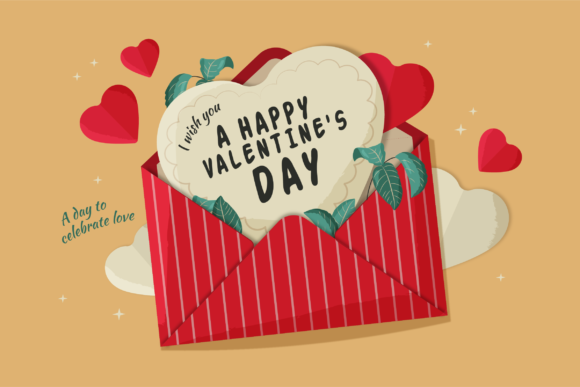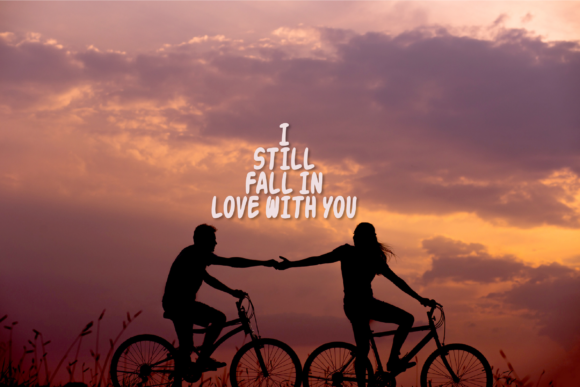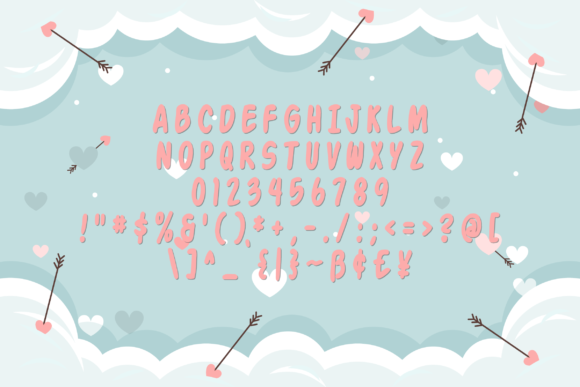
Caterine Font: The Perfect Blend of Charm, Cuteness, and Elegance
In the world of typography, fonts play a crucial role in making or breaking a design. A well-chosen font can elevate your project, making it more engaging, readable, and aesthetically pleasing. If you’re a designer or crafter looking for a versatile and captivating font, look no further than Caterine Font. This charming and cute sans serif font is not only elegant but also incredibly adaptable, making it perfect for a wide range of applications.
The Characteristics of Caterine Font
Caterine Font is a sans serif font, which means it doesn’t have the small lines or flourishes at the ends of the letters. This makes it clean, modern, and highly legible. The font’s design is characterized by its rounded edges and soft curves, giving it a friendly and approachable feel. Despite its playful appearance, Caterine Font exudes an air of elegance, making it suitable for both casual and formal projects.
One of the standout features of Caterine Font is its versatility. This font is not limited to a specific use case; instead, it can be used across a variety of projects. Whether you’re working on a website, a brochure, a poster, or even a craft project, Caterine Font can be the perfect choice. Its ability to seamlessly transition from body text to headlines makes it an invaluable asset for designers who need a reliable and stylish font.
Applications of Caterine Font
The applications of Caterine Font are vast and varied. Here are a few examples:
- Web Design: Caterine Font can be used as a primary font for website content, ensuring readability and a pleasant user experience. Its clean design also makes it suitable for digital interfaces and mobile applications.
- Print Design: For print materials such as brochures, flyers, posters, and business cards, Caterine Font adds a touch of sophistication and charm. Its elegance ensures that your print materials stand out.
- Crafting and DIY Projects: If you’re into crafting or DIY projects, Caterine Font can add a personal and whimsical touch to your creations. Use it for journaling, making cards, or creating custom decals.
Why Choose Caterine Font?
There are several reasons why Caterine Font should be your go-to choice for your next design project:
- Aesthetic Appeal: Caterine Font is not just cute and charming; it’s also incredibly elegant. This combination makes it a unique addition to any project.
- Readability: The sans serif design and rounded edges of Caterine Font ensure high readability, making it perfect for both digital and print materials.
- Versatility: As mentioned earlier, Caterine Font’s adaptability is one of its strongest features. It works well in a variety of contexts, from casual crafts to professional design projects.
How to Use Caterine Font Effectively
To make the most out of Caterine Font, consider the following tips:
- Mix and Match: Don’t be afraid to use Caterine Font in combination with other fonts. Its elegance and readability make it a great base font, while contrasting fonts can be used for highlights or headings.
- Play with Sizes: Caterine Font’s versatility extends to its use in various sizes. Use it for body text, and then switch to larger sizes for headlines or emphasis.
- Experiment with Colors: While Caterine Font looks great in black and white, don’t hesitate to experiment with colors. Its friendly appearance works well with a variety of color schemes.
Caterine Font is more than just a font; it’s a design tool that can elevate your projects to new heights. Its unique blend of charm, cuteness, and elegance, combined with its versatility and readability, makes it an excellent choice for designers and crafters alike. Whether you’re working on a professional project or a personal craft, Caterine Font is guaranteed to add a magical touch, making your design more engaging, readable, and aesthetically pleasing. So, why wait? Explore the possibilities with Caterine Font today and discover how it can transform your designs.